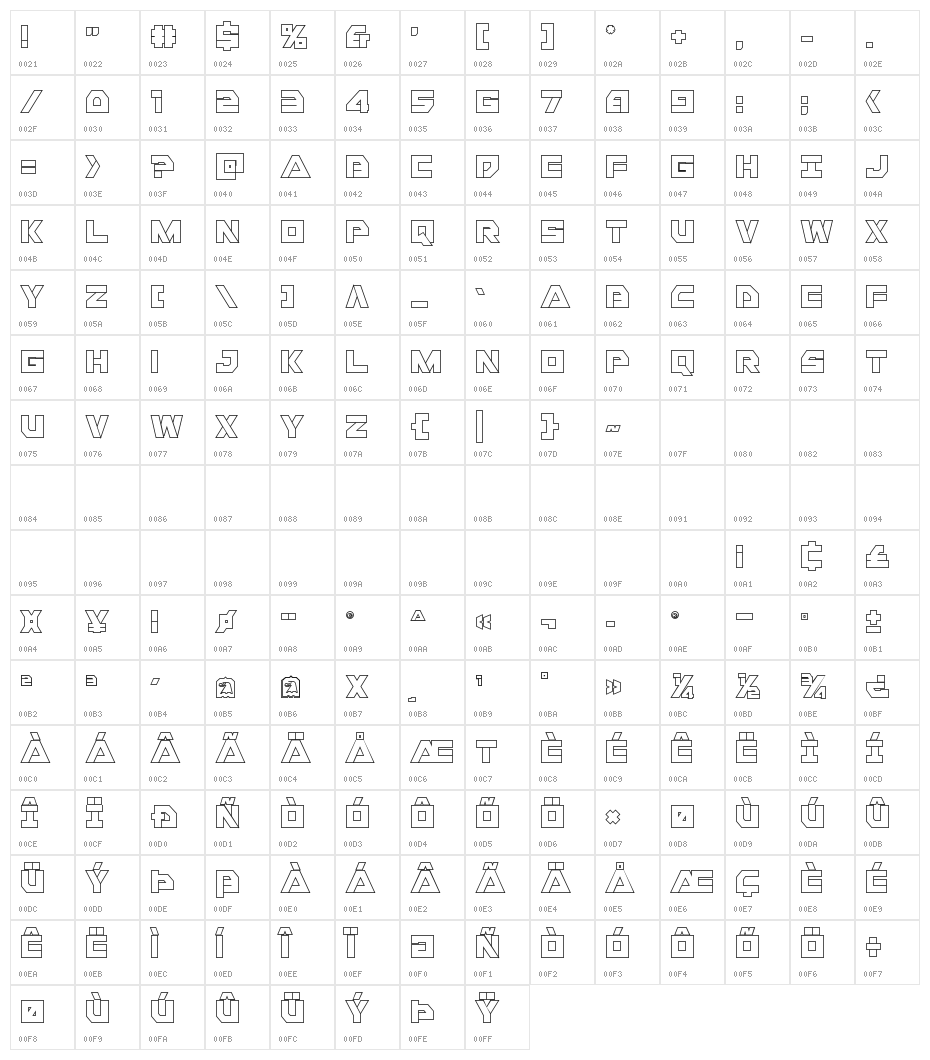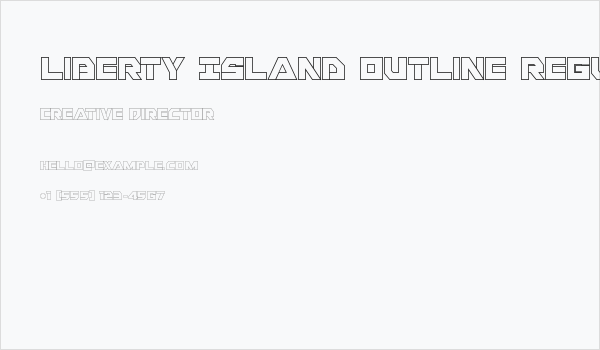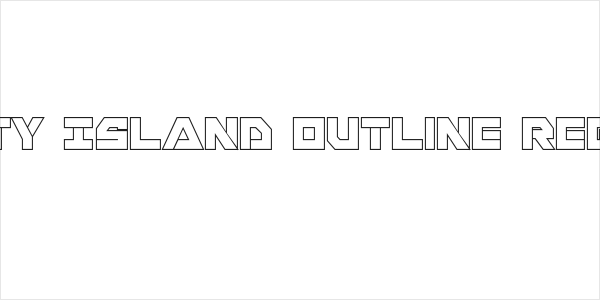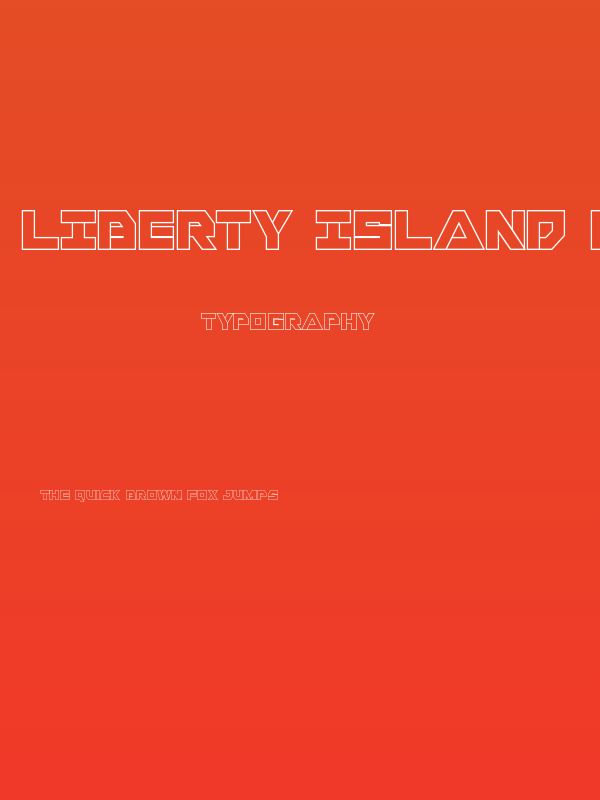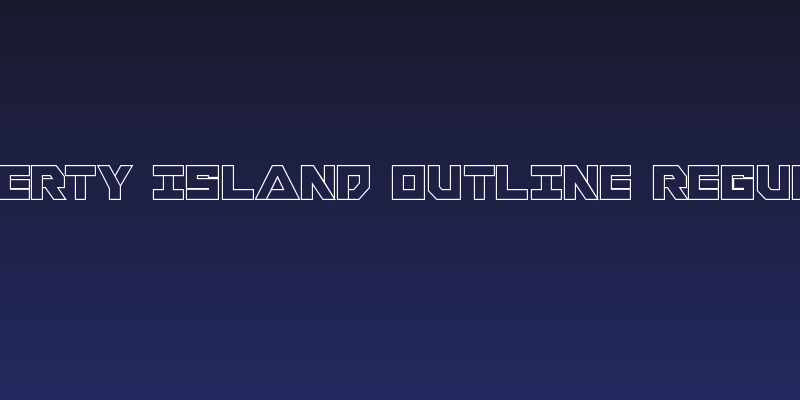
Liberty Island Outline Regular Font
Liberty Island Outline Regular Description
This font features a bold, geometric outline style that gives it a modern and futuristic appearance. Each character is constructed with sharp angles and clean lines, creating a sense of structure and precision. The uppercase and lowercase letters maintain a consistent design, emphasizing uniformity across the alphabet. The numbers and special characters follow the same aesthetic, ensuring a cohesive look throughout. This font's outline nature makes it ideal for designs that require a strong visual impact without overwhelming the viewer. Its unique style is both eye-catching and versatile, suitable for various creative applications.
| Proposed Projects | Ideal for branding, posters, video game graphics, and futuristic-themed designs. |